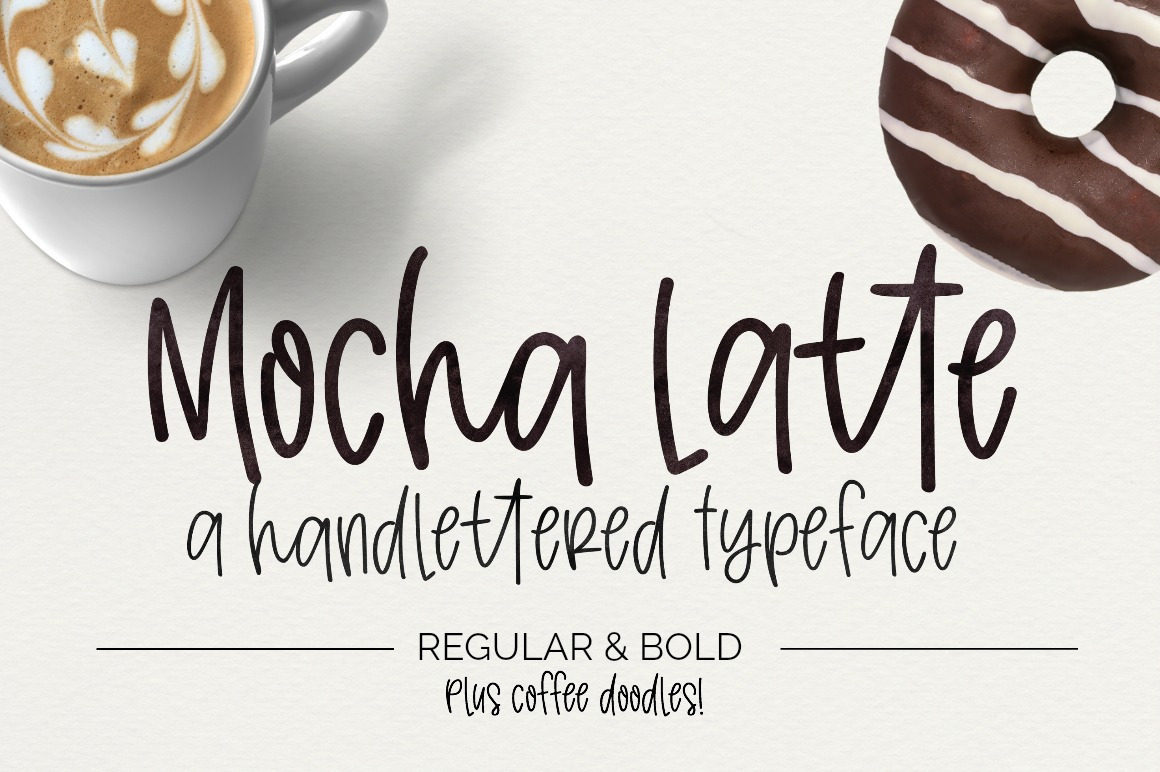
Mocha Latte- Font + Doodles
Mocha Latte is a handwritten font that is bursting with ligatures, includes multi-lingual characters, two weights and a set of coffee doodles! This font is perfect the you need the handwritten touch!